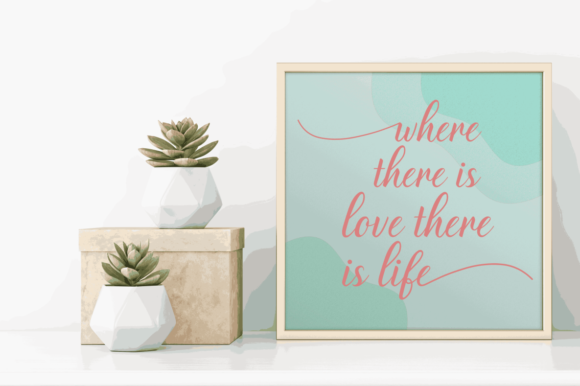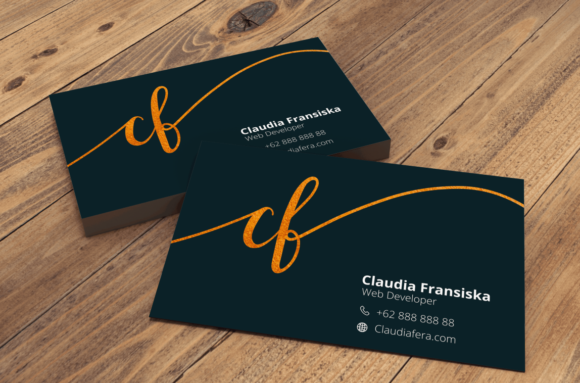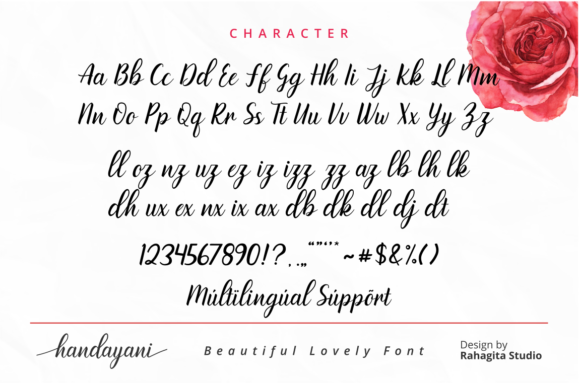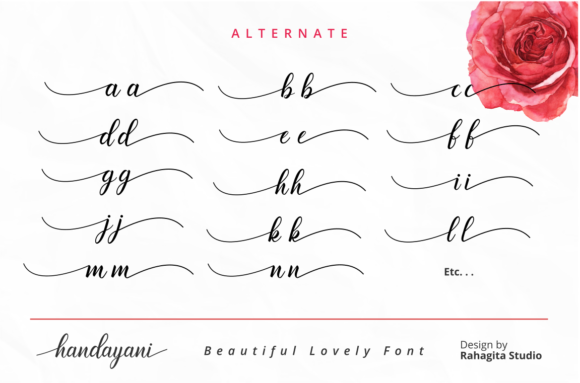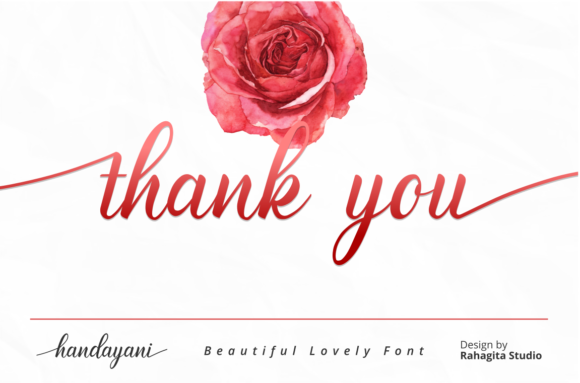
Handayani
About Handayani Font
Handayani is a flowing and neat lettered handwritten font, that feels equally charming and elegant. This font is PUA encoded which means you can access all of the glyphs and swashes with ease! It features a varying baseline, smooth lines, gorgeous glyphs and stunning alternates.Fall in love with its incredibly versatile style and use it to create spectacular designs!